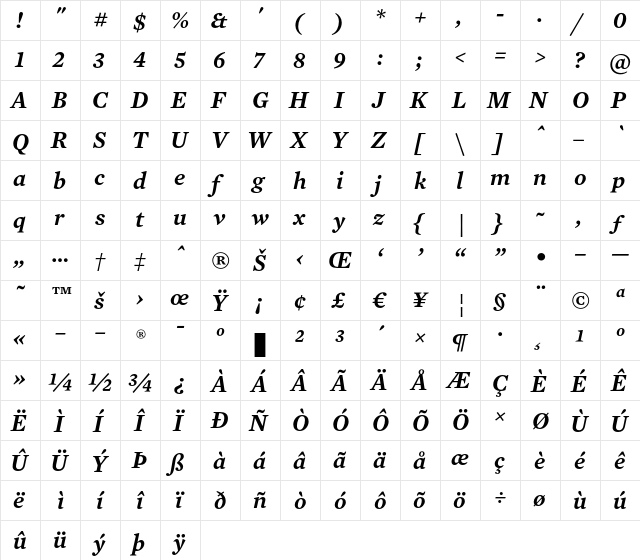
Mercury Text G1 Semibold Italic
Design Context for Mercury Text G1 Typeface
Mercury Text G1 is a composed and adaptable typeface that performs quietly and consistently across a wide range of design contexts. The slanted form adds forward momentum and visual energy. Its bold stroke weight gives it real presence on the page.
Pro Tip: Use Mercury Text G1 for emphasis, pull quotes, and subheadings where its slanted energy can add rhythm to the layout.